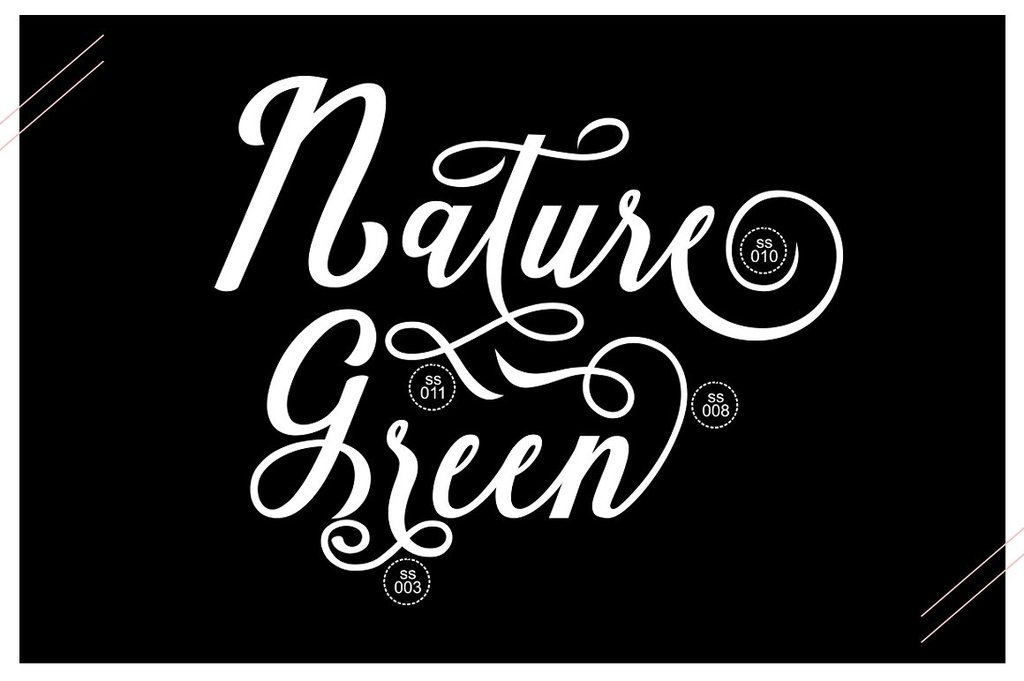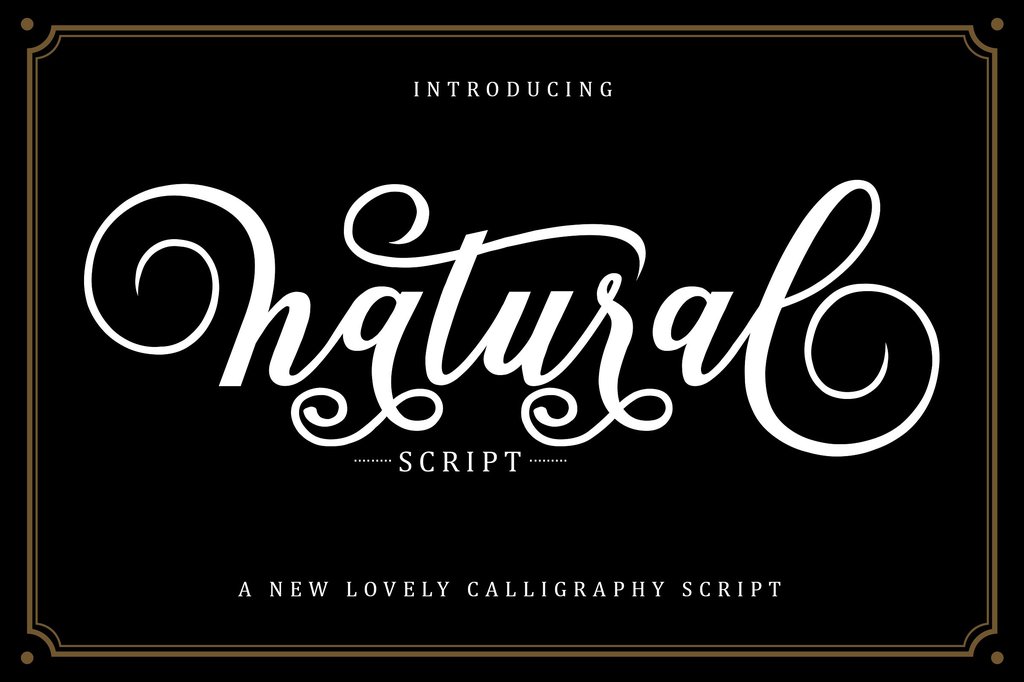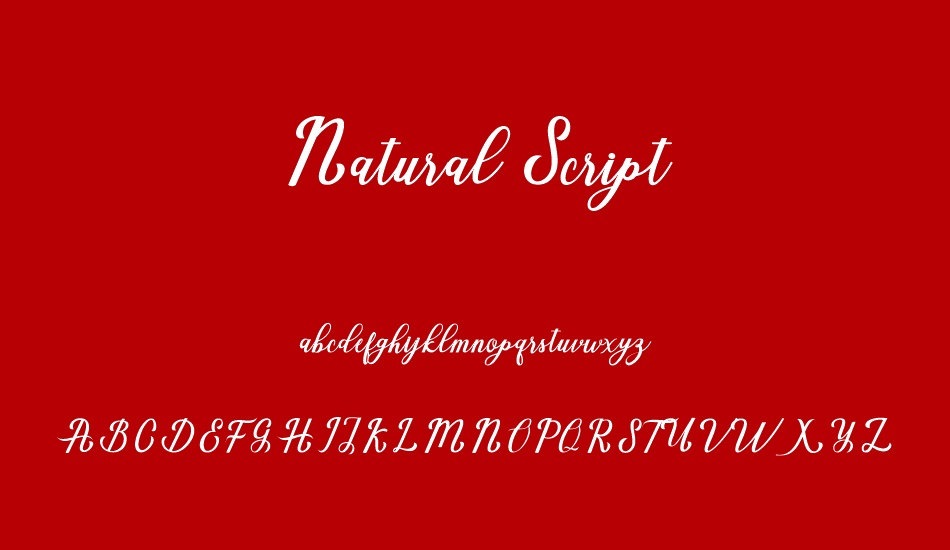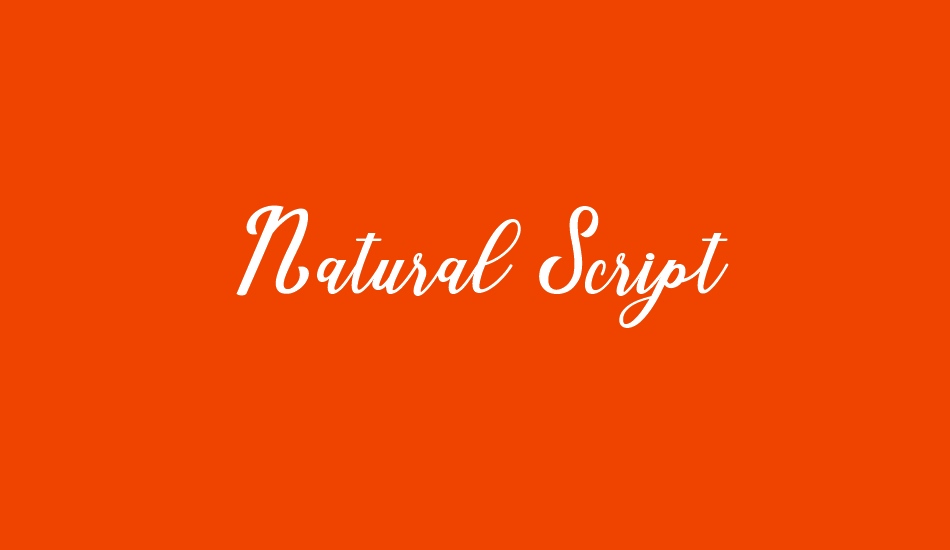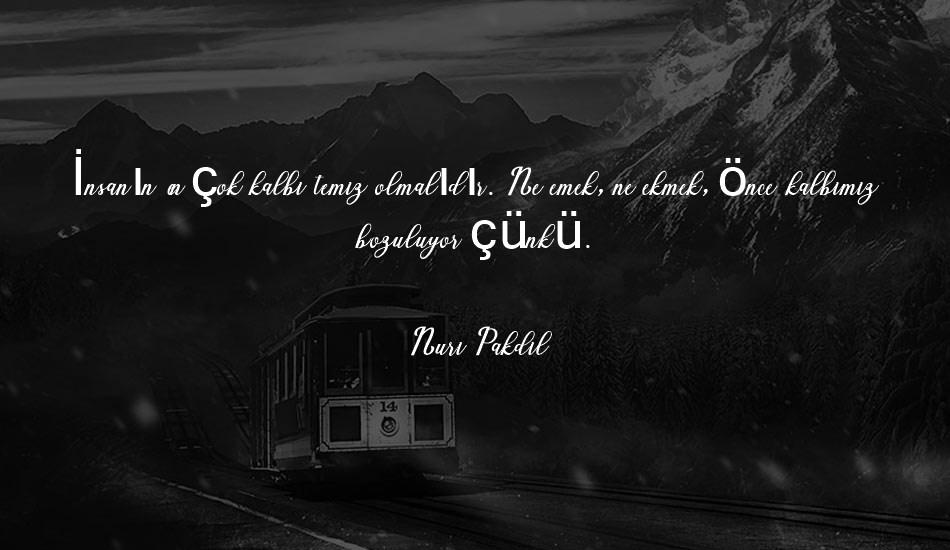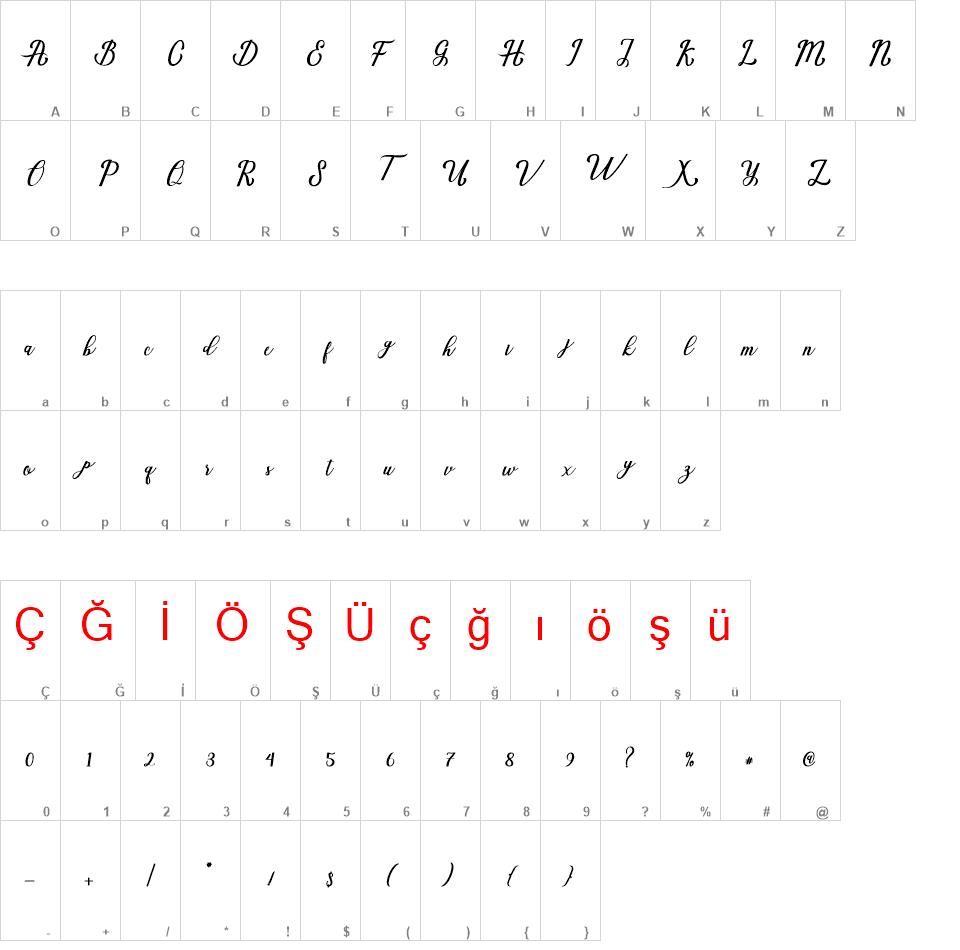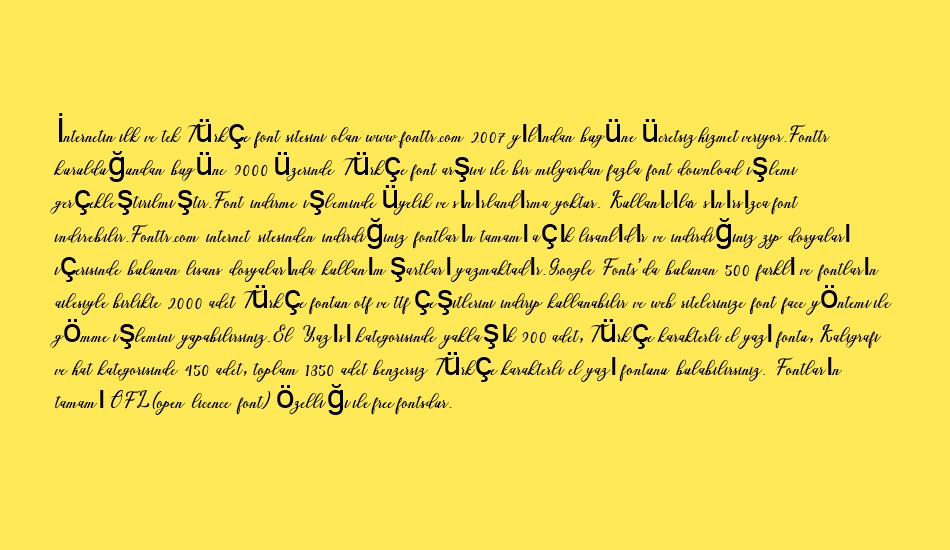
Natural Script
Introducing Natural Script,
is a modern feminine font, every letter has been carefully crafted to make your text look beautiful. With a modern script style, this font will be perfect for projects: photography, watermarks, quotes, blog headers, posters, weddings, branding, logos, fashion, clothing, letters, invitations, stationery,Natural Calligraphy An elegant new font! For those of you who need an elegant and modern touch for your design, this font is made for you!
The full version is built with OpenType features and includes the initial and final swash characters, alternative swash characters for most lowercase letters, numbers, punctuation, alternatives, ligatures and also support other languages ??:) The full version comes with many variant glyphs. Alternate characters are divided into several Open Type features such as Swash, Stylistic Sets, Stylistic Alternates, Contextual Alternates. Open Type features can be accessed using Open Type smart programs such as Adobe Illustrator, Adobe InDesign, Adobe Photoshop Corel Draw X versions, and Microsoft Word. And this font has given unicode PUA (especially font code). so that all alternative characters can be easily accessed by craftsmen or designers.